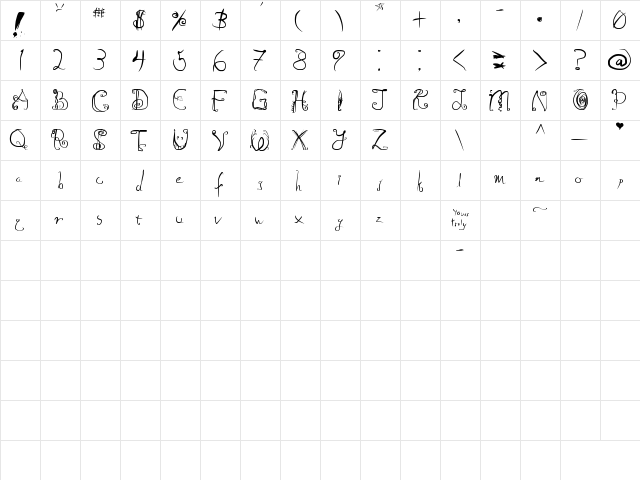
Demented Lovenote Regular
| Designer | BlackDahlia |
Design Context for Demented Lovenote Typeface
Demented Lovenote is a composed and adaptable typeface that performs quietly and consistently across a wide range of design contexts.